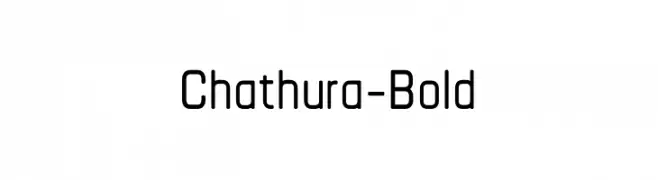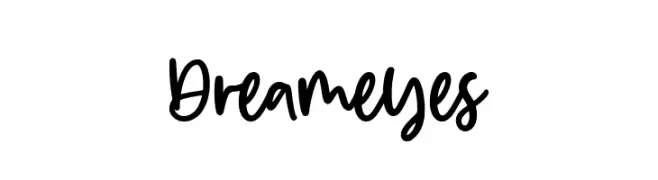
An elegant, flowing script font with smooth, cursive letterforms.
A bold, geometric font with a three-dimensional shadow effect.
A dynamic, cursive script font with a bold, handwritten style.
A playful, casual handwritten font with smooth, flowing lines.
A mystical, rune-like font with sharp, angular strokes and a calligraphic style.
A modern, geometric sans-serif font with narrow, elongated characters.
A modern, geometric sans-serif font with a clean and balanced design.
A sleek, modern font with a thin, linear structure and uniform spacing.
A modern, geometric sans-serif font with a clean and bold appearance.
A modern, geometric sans-serif font with a sleek and elongated appearance.